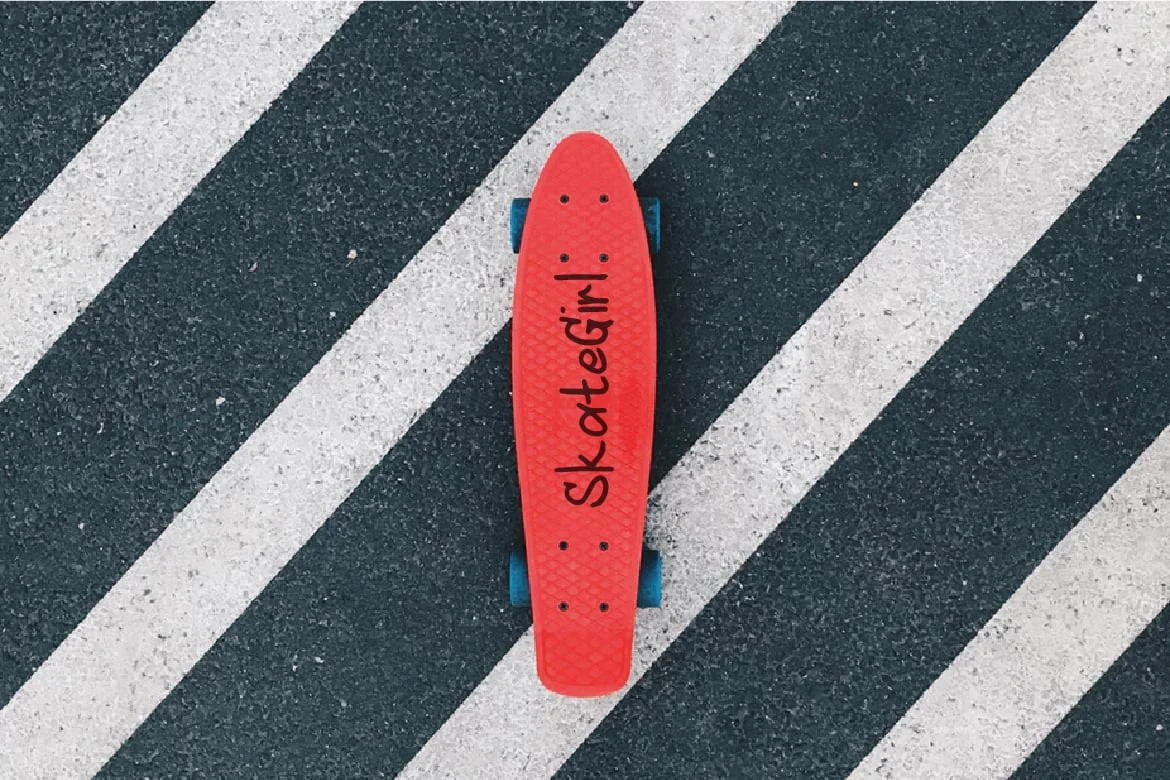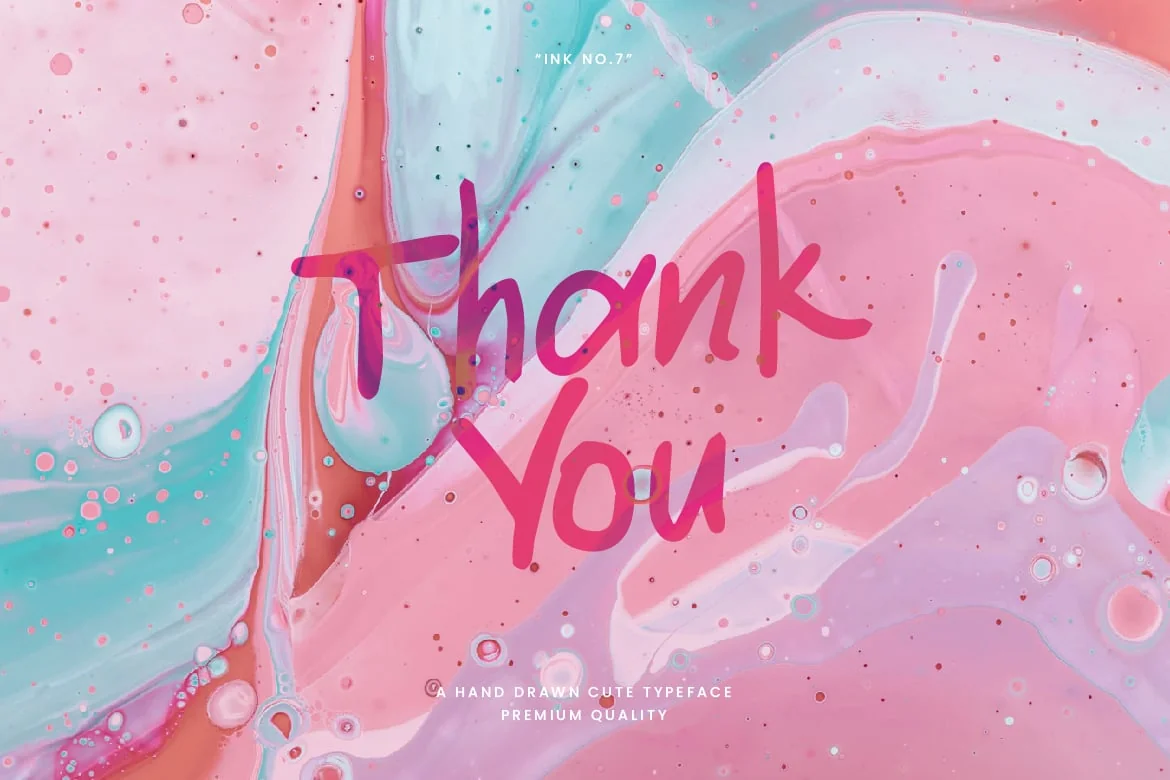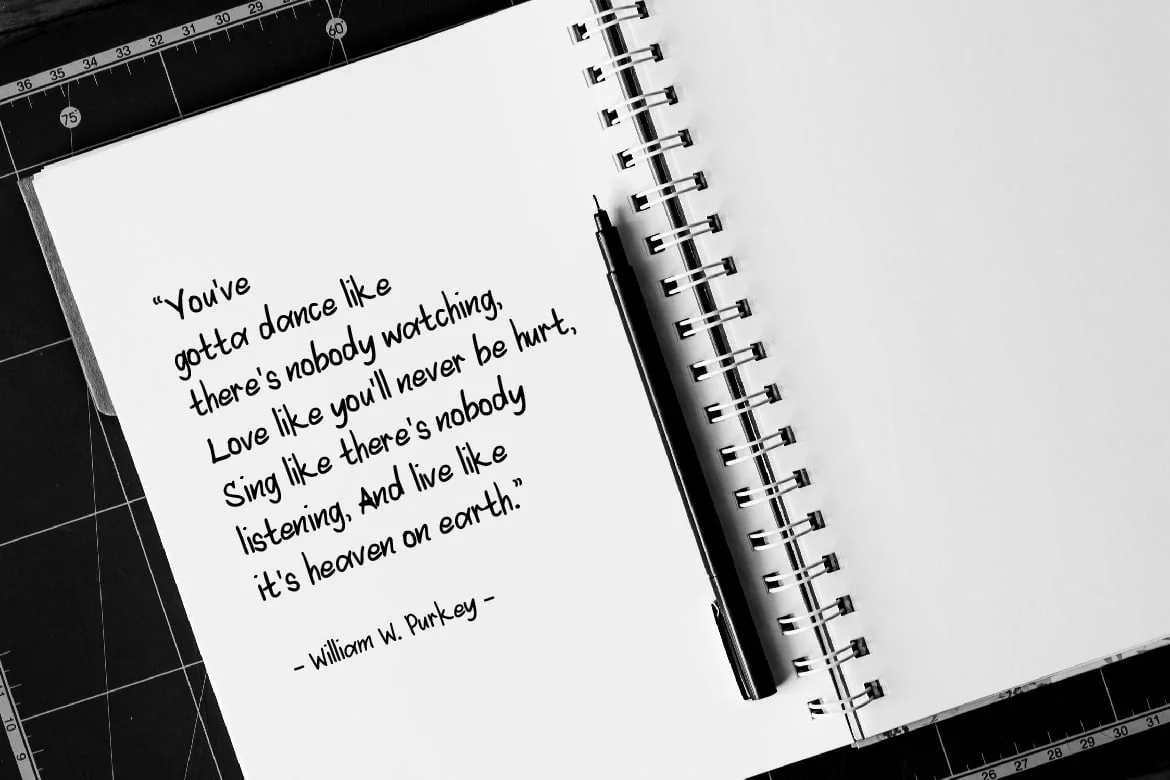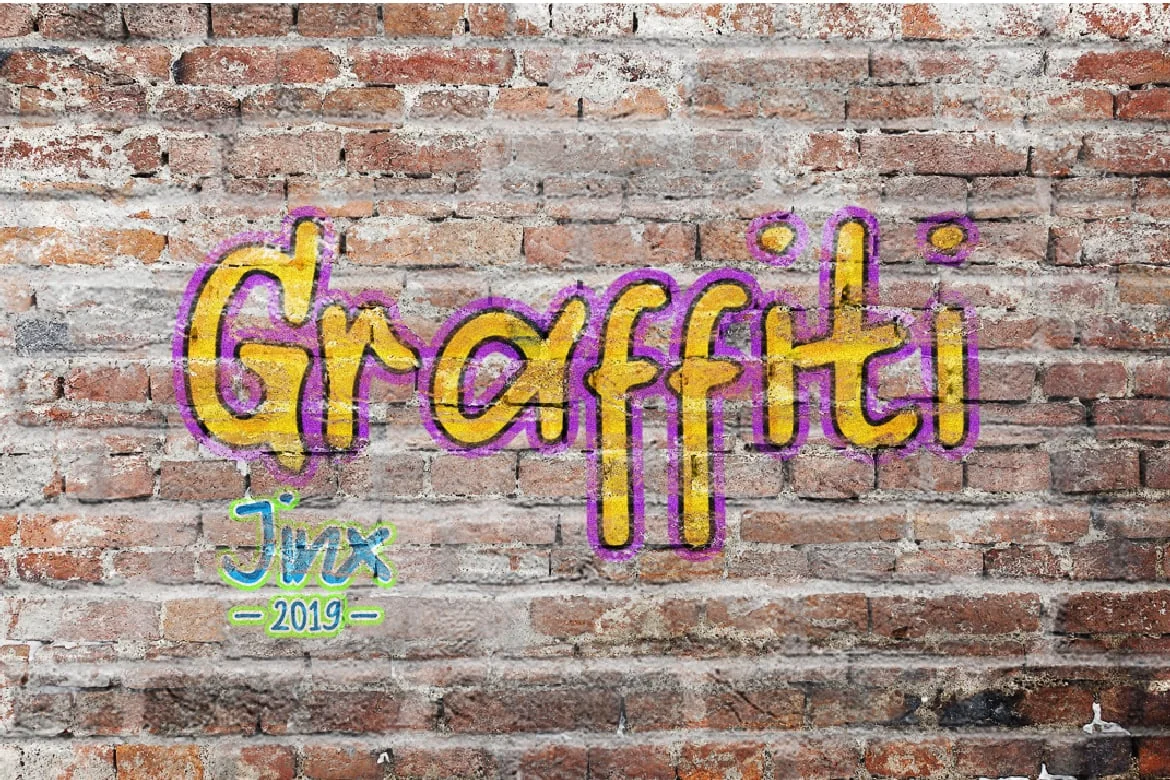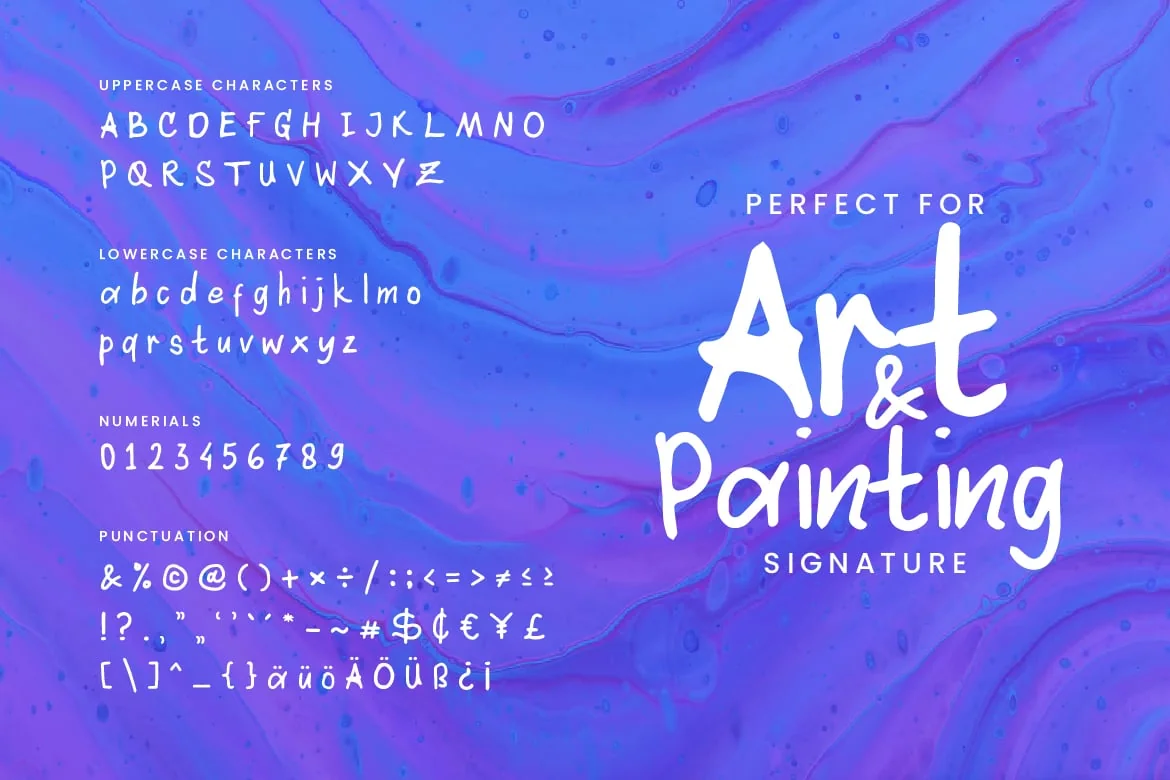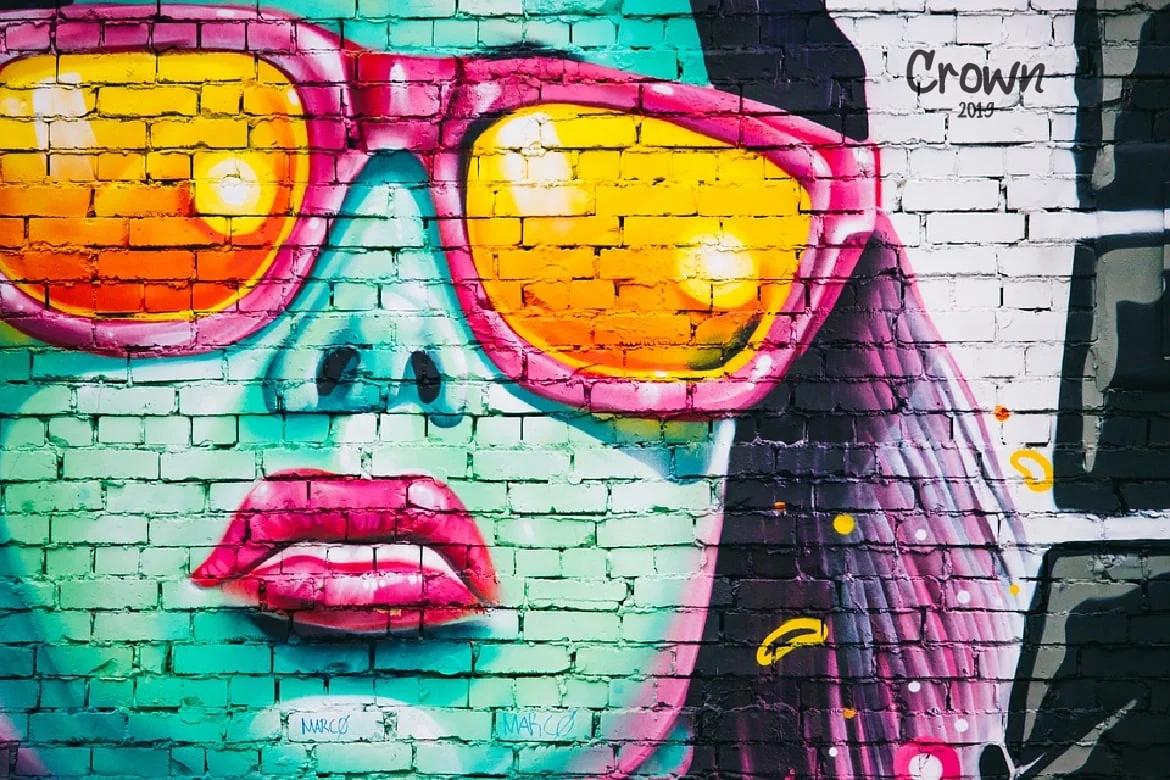
Ink – Handwriting Font
Are you looking for a simple natural handwriting font? We can help! Try to download our Ink font. The font is suitable to use for all casual purpose. Try to use it on Wedding invitation, greeting card, poster, postcard, photography, branding, editorial, and many more π